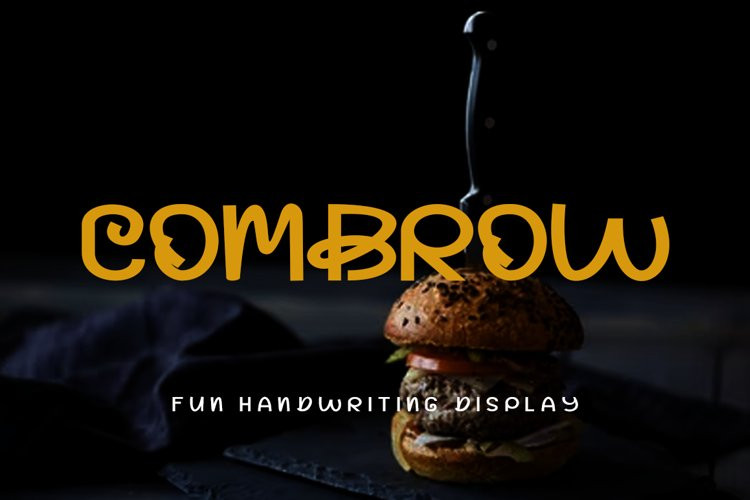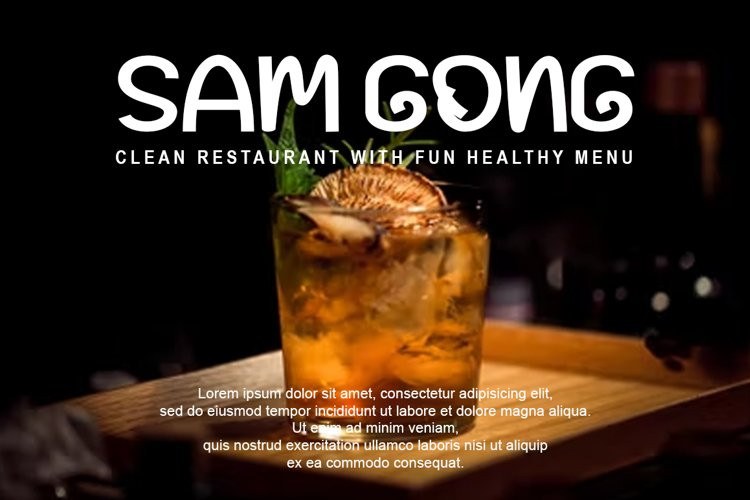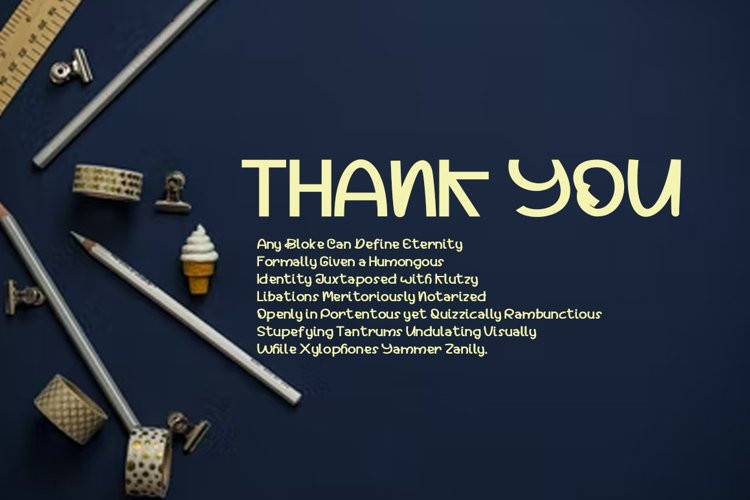
Combrow Font
Combrow FontIntroducing a cute handwriting “Combrow” display font
If you are needing a touch of casual modern calligraphy for your designs, this font was created for you!